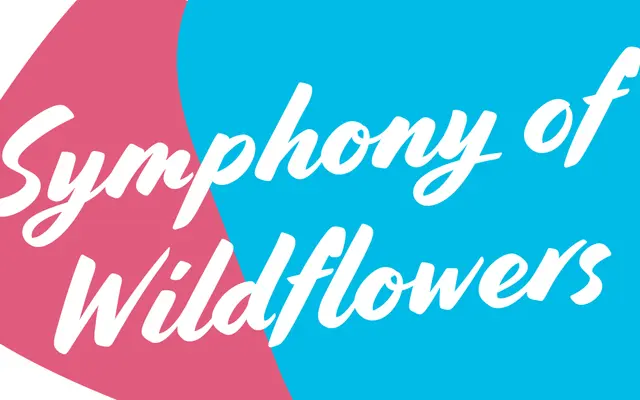
Cortado
XYZ Type · Ben Kiel, Jesse Ragan · 2014
A digitised brush script by Ben Kiel and Jesse Ragan, drawn from illustrator Cecilia Carlstedt's hand-painted lettering and automated with OpenType to mimic the rhythm of genuine brushwork.
Based on Cecilia Carlstedt's pointed-brush illustration work, Cortado was drawn by Ben Kiel and Jesse Ragan and released in 2014. OpenType programming handles alternating cursive connections, ligatures to avoid collisions, natural stroke endings and subtle shape variations on repeated letters, removing the mechanical repetition that usually betrays digital scripts. The result carries a mid-century confidence suited to branding, packaging and editorial contexts that want warmth without nostalgia.
Directly derived from hand-painted brushwork by illustrator Cecilia Carlstedt, Cortado is a pointed-brush script with mid-century character and advanced OpenType automation for natural lettering variation.